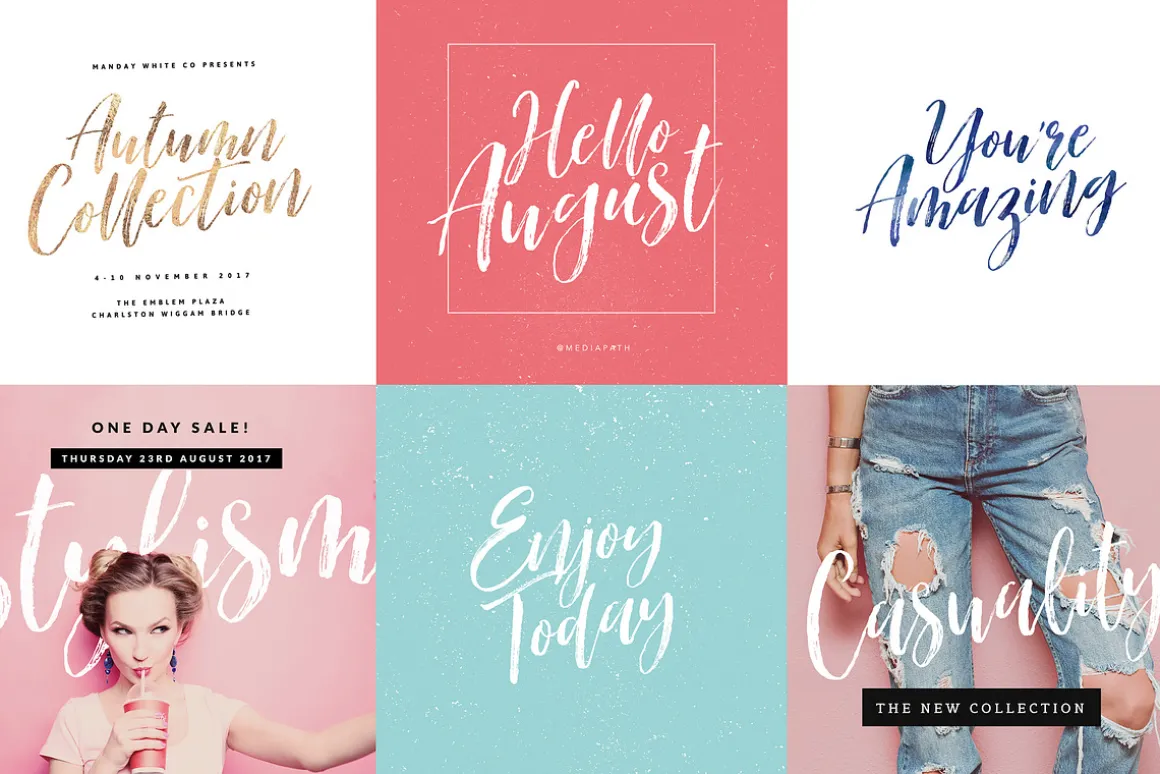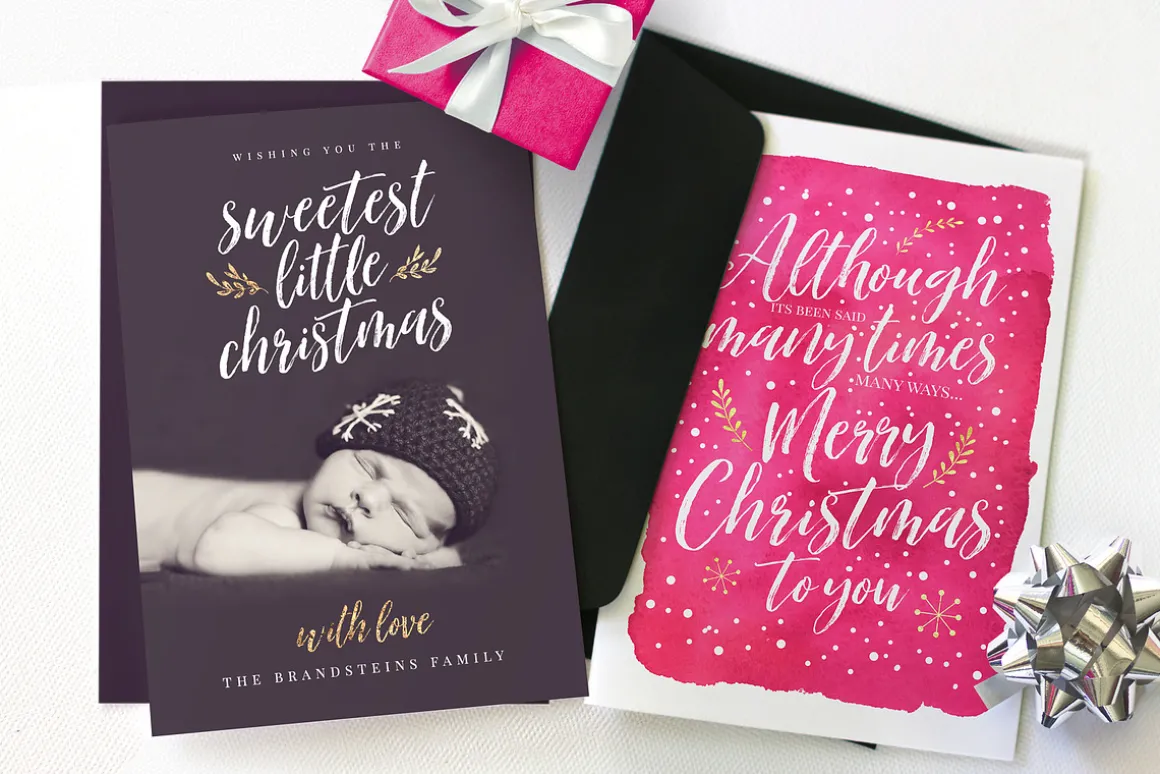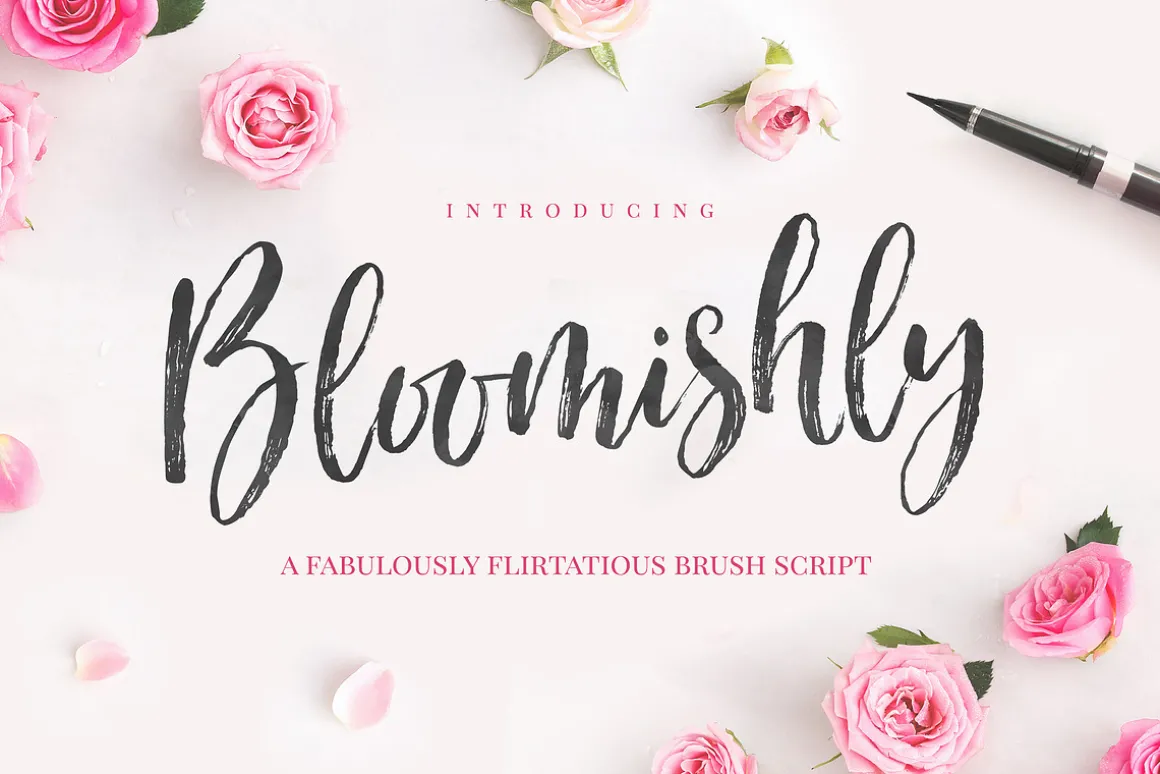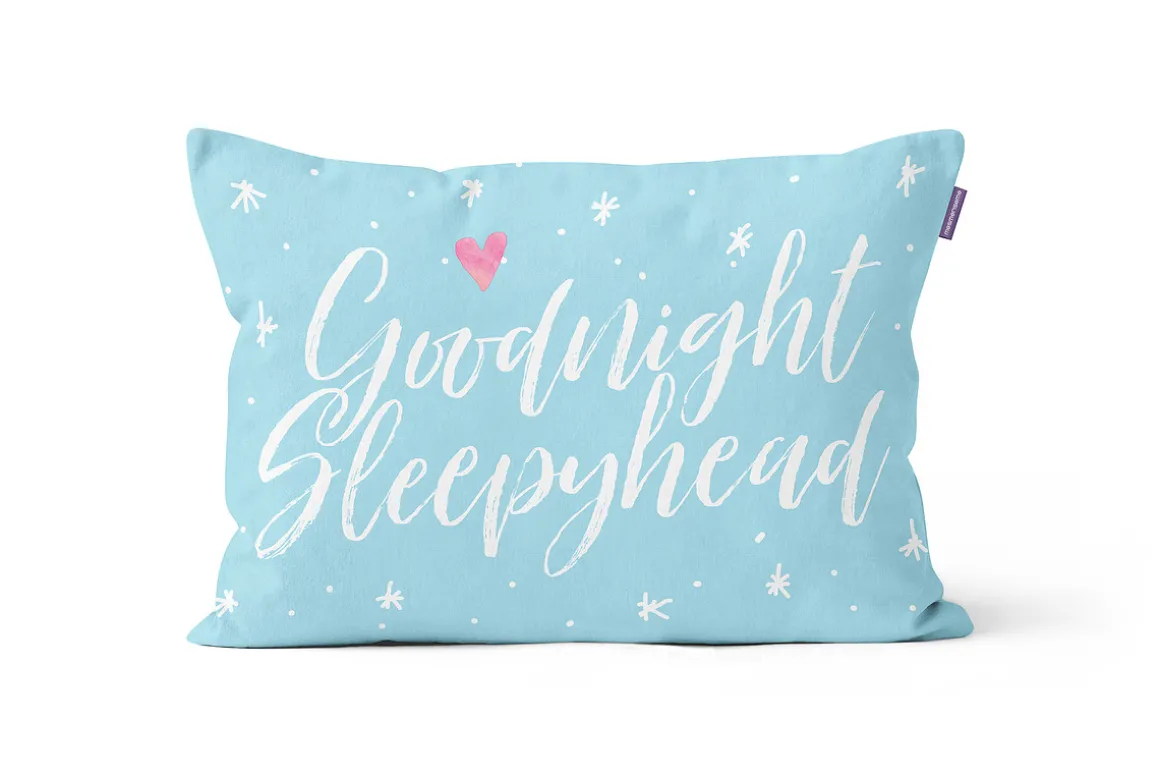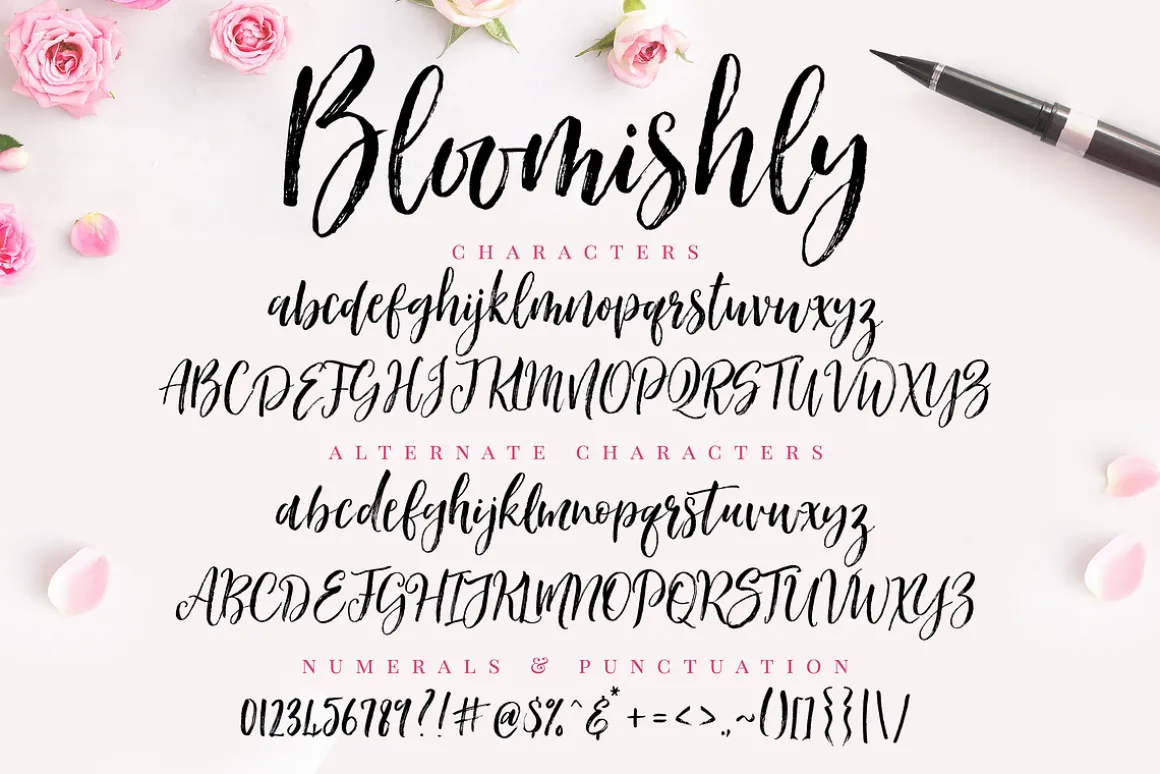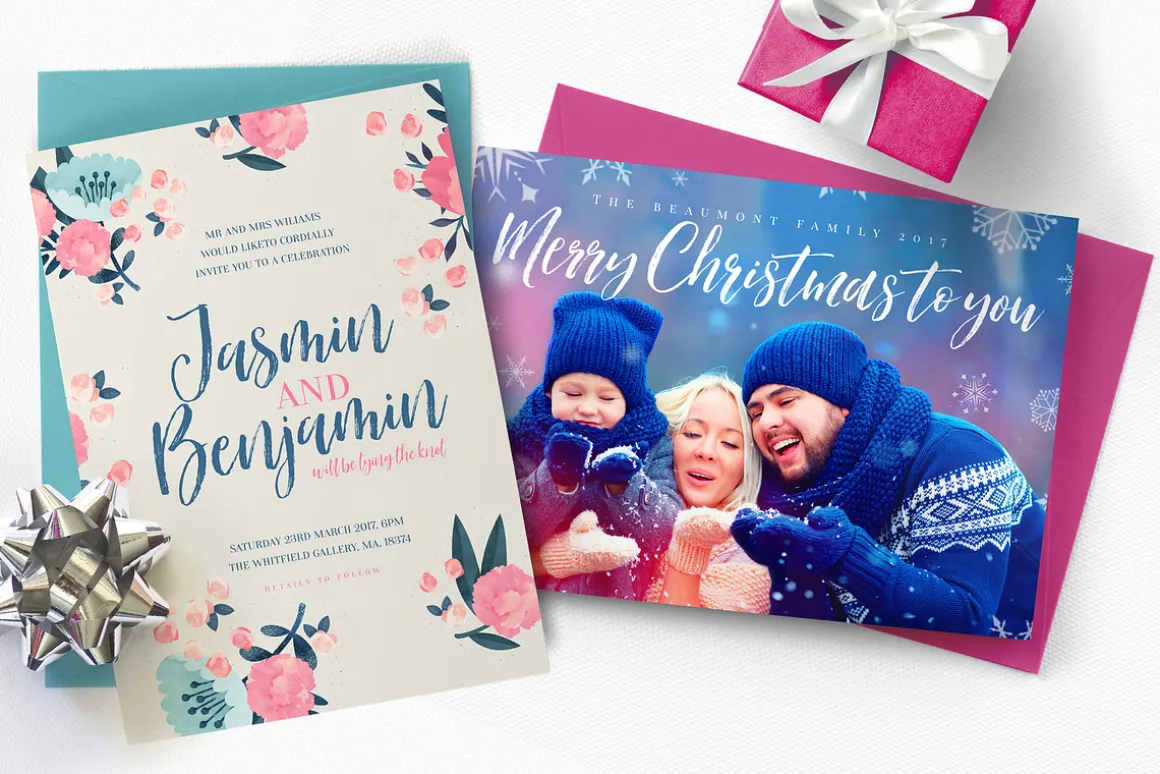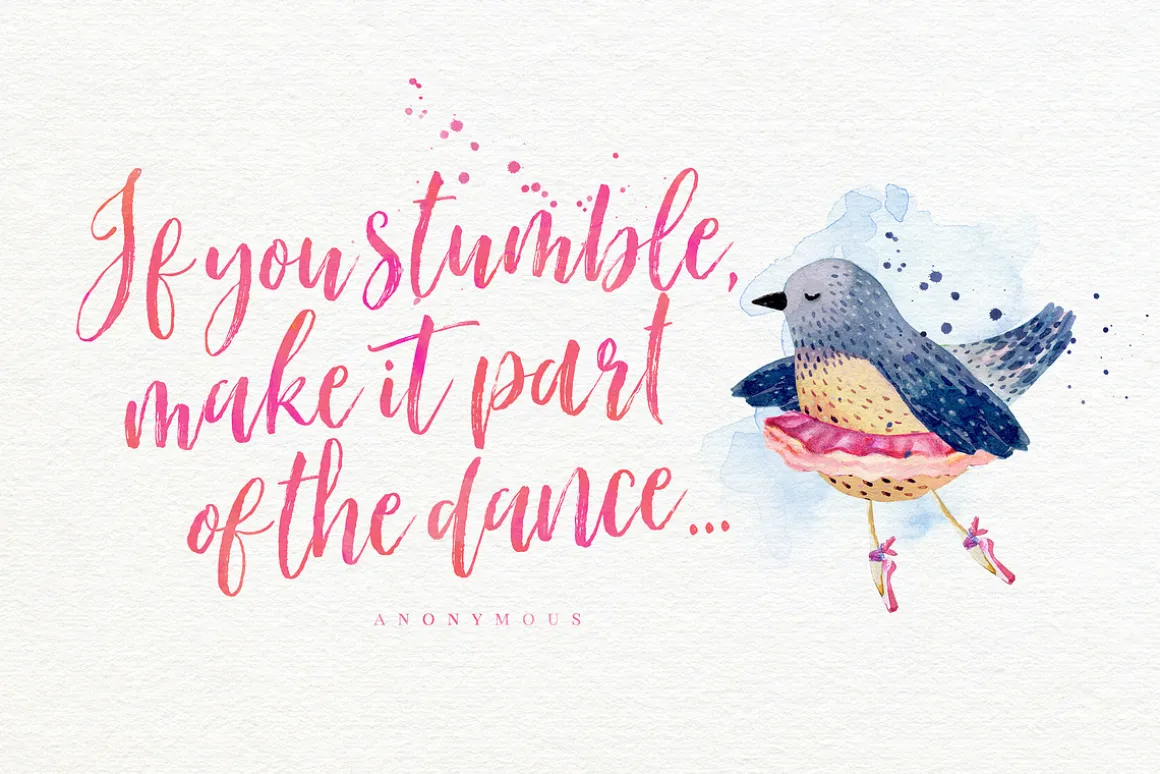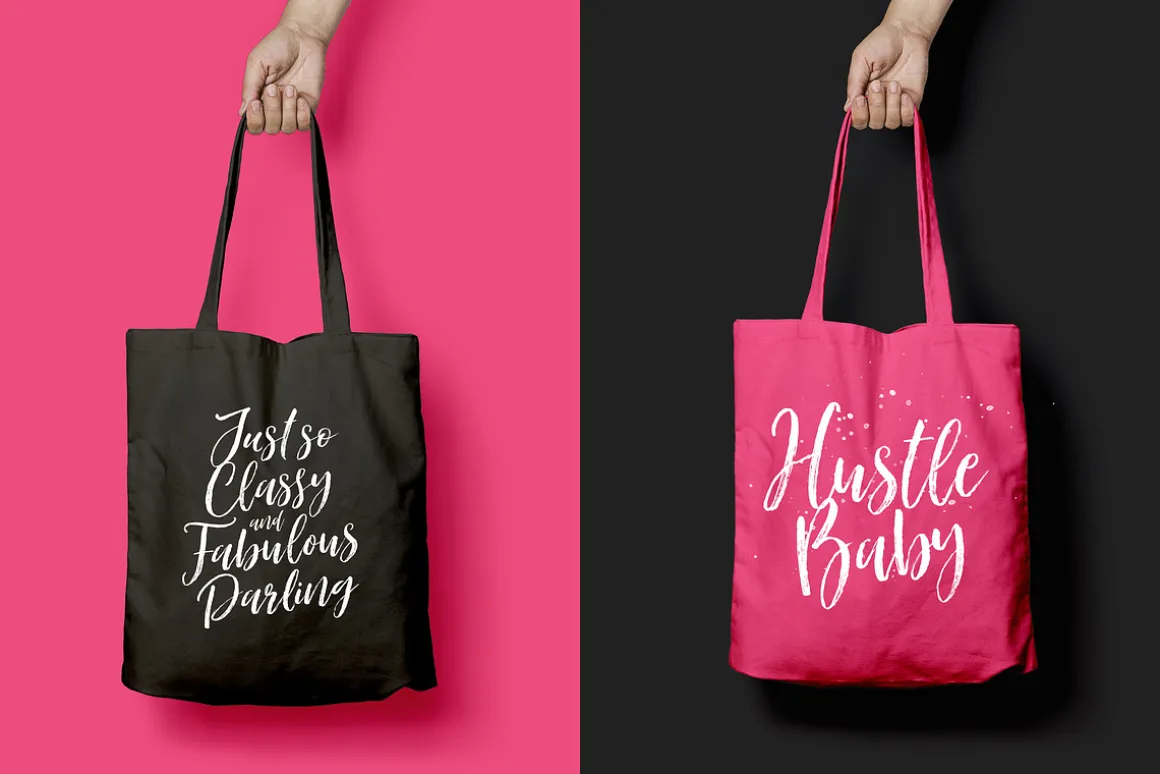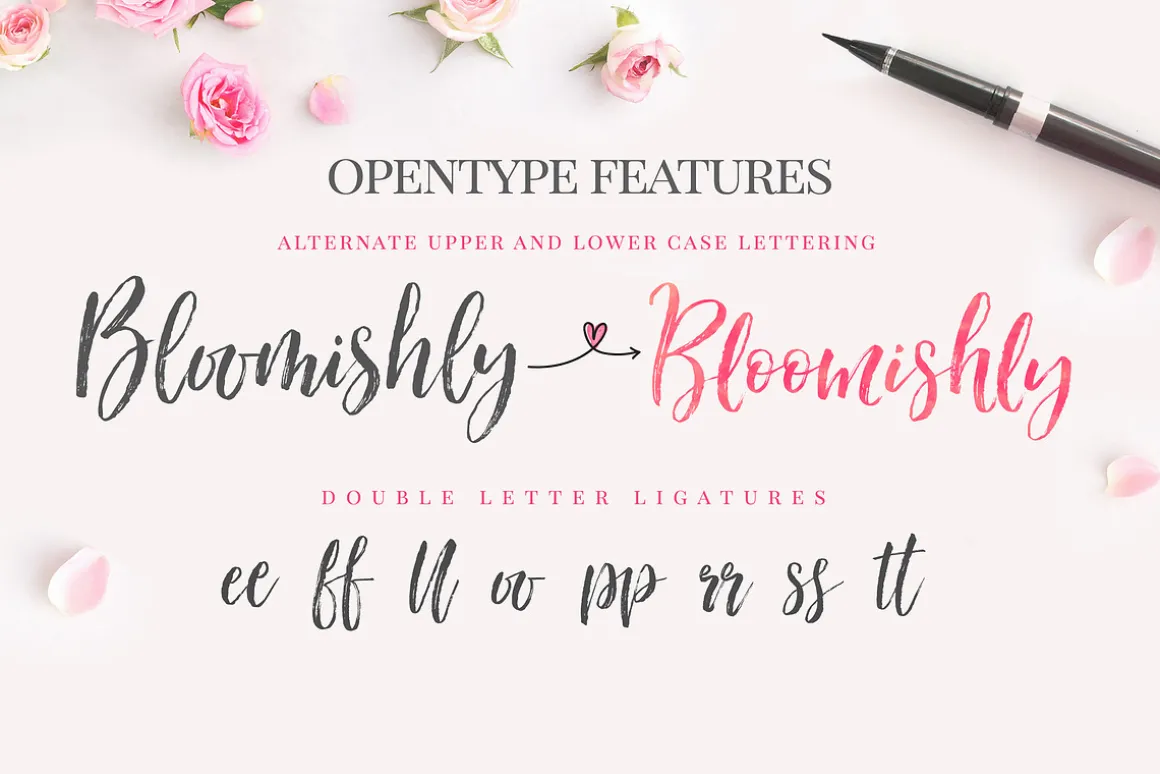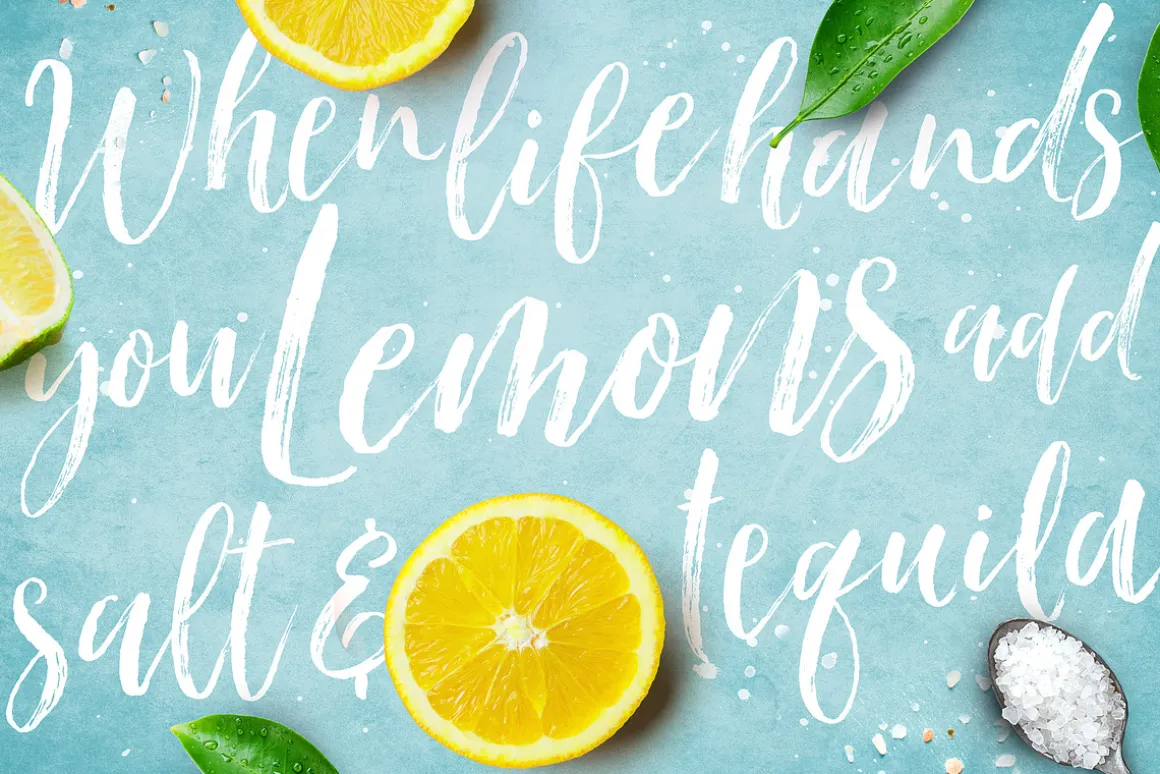
Say hello to Bloomishly! A voluptuous new brush script with a fabulously flirtatious nature 🙂
Bloomishly has a playfully bouncy baseline, and thick flourishing lines- perfect for adding a fresh & unique look to company branding, logos, greetings, magazine layout, homeware, prints and invitations.
Bloomishly comes with a full set of alternate characters ( an entire second font!) – to add that extra unique touch to your design, and make it easier to get the exact look you want.
There are 4 variants of Boomishly, to add even more flexibility to your designs :Regular, Broad, Italic, and Broad Italic. **
For those with Opentype capable software ( Photoshop CC or any version of Illustrator/ Indesign),Bloomishly also comes with Opentype features such as access to all the alternate letters and double letter ligatures.
Multilingual support included for the following countries: Danish, Dutch, English, Filipino, Finnish, French, Galician, German, Indonesian, Irish, Italian, Norwegian Bokmål, Norwegian Nynorsk, Portuguese, Romansh, Somali, Spanish, Swedish, Swiss German.